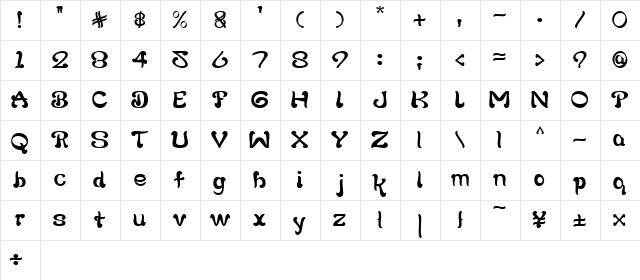
Barbeque Paintbrush
| Style | Paintbrush |
| Designer | Waton Studio |
Design Context for Barbeque Typeface
Barbeque flows with the natural rhythm of handwritten lettering, making it ideal for designs that call for warmth and personal expression.